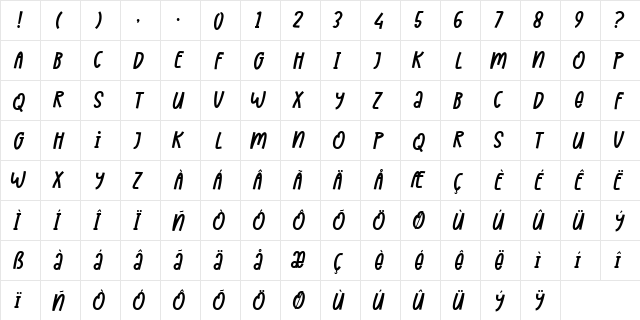
Basketball Diary Regular Font Preview
Basketball Diary Regular
Basketball Diary Regular Font Details
| Foundry | Epiclinez |
| Designer | Aldy F S |
Design Context for Basketball Diary Typeface
Basketball Diary is a composed and adaptable typeface that performs quietly and consistently across a wide range of design contexts.